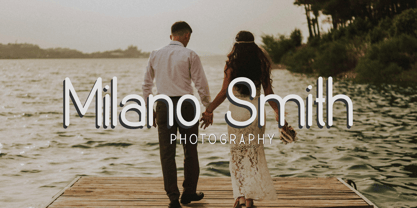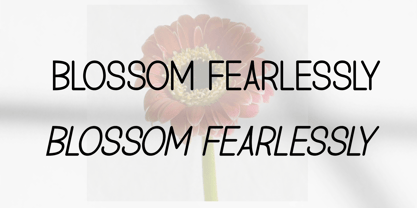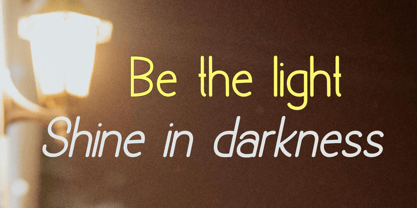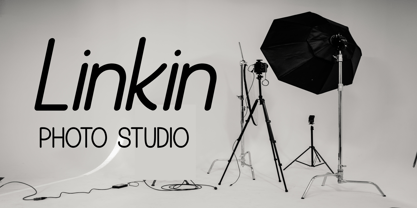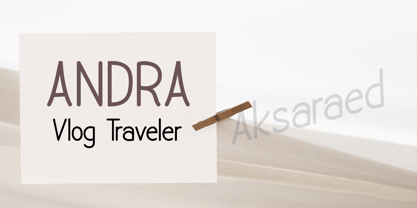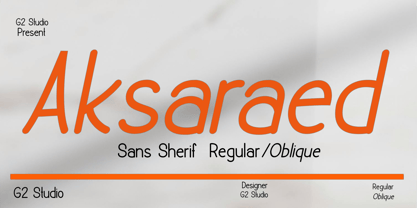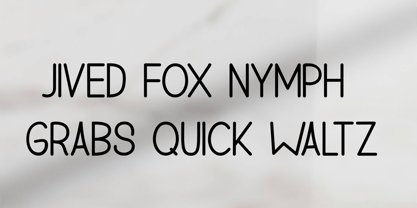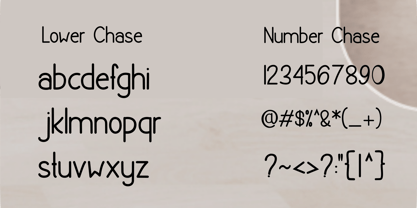
Aksaraed
by G2 Studio
The Aksaraed Font Family was designed by Eka Setiono and published by G2 Studio. Aksaraed contains 2 styles and family package options. More about this family
Aksaraed Sans Serif is a modern, clean, and highly readable font. With balanced proportions and smooth lines, it exudes elegance and professionalism, making it perfect for both digital and print designs.
Designers: Eka Setiono
Current Foundry: G2 Studio